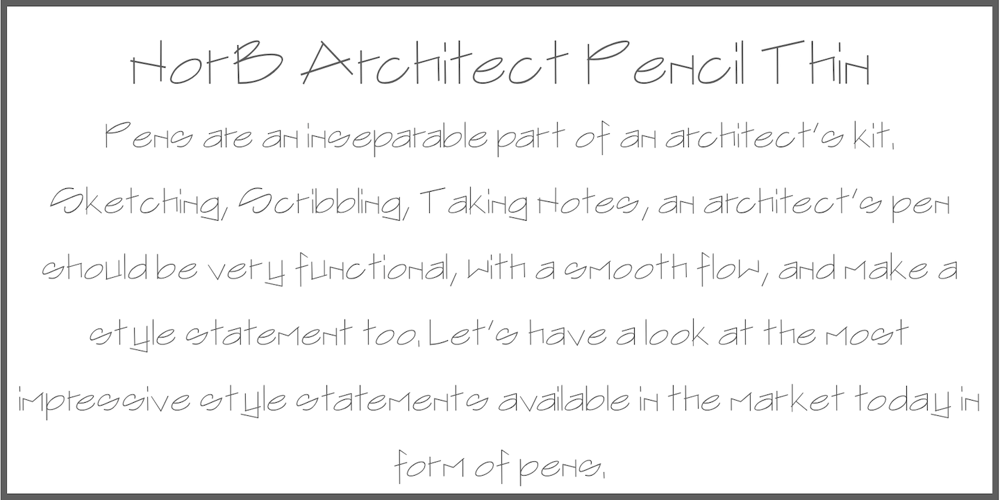
NorB ARCHITECT PENCIL Font Family was designed by Nor Eddine Bahha and published by NorFonts. NorB ARCHITECT PENCIL contains 7 styles and family package options. NorB Architect Pencil fonts are the fruit from learning architectural lettering books so featuring 7 weights going from Light to Extra Bold version.These Architectural fonts will add a beautiful architectural hand-lettering style to all your CAD project drawings. Architects have always wanted their CAD drawings to look more like they were drawn by hand, rather than by a CAD program. These AutoCAD fonts are the first step in bringing back that “artistic hand-drawn” feel to your CAD drawings or any graphic design project that can use true type fonts. They also can be used with any word processing program for text and display use, print and web projects, apps and ePub, Comics, graphic identities, branding, editorial, advertising, scrapbooking, cards and invitations … or even just for fun!